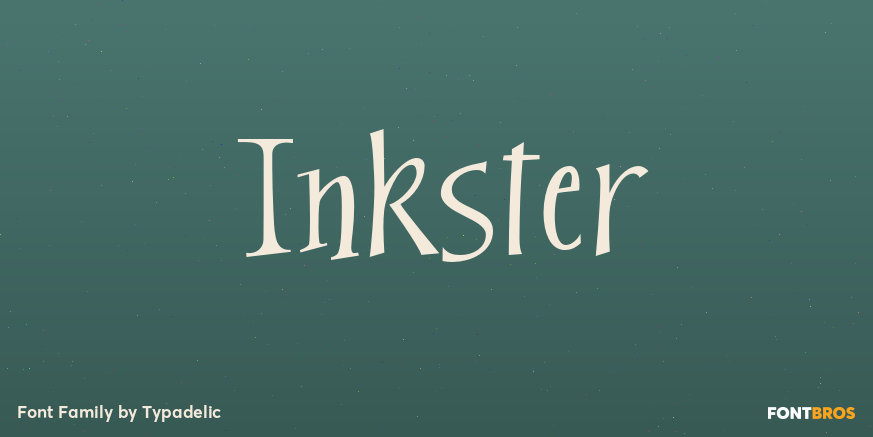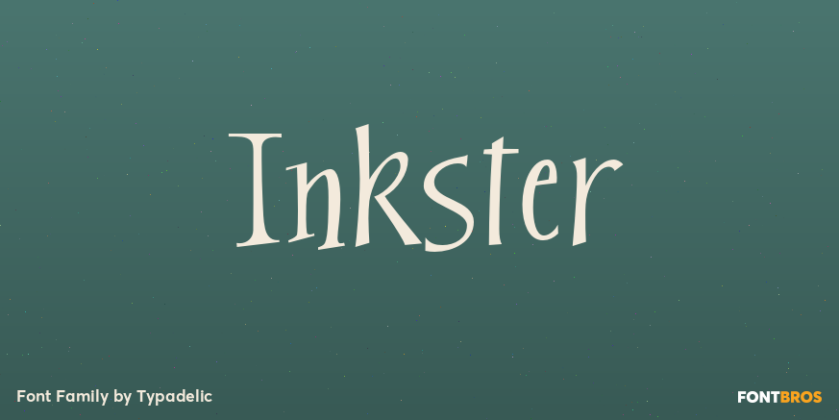
Inkster
About Inkster
Inkster breaks all the rules. The serifs vary from letter to letter, if they have any serifs at all. The upper and lower case letters intermingle and the contrasting characters bounce all over the baseline. Loosely based on the character shapes of Frisco,…